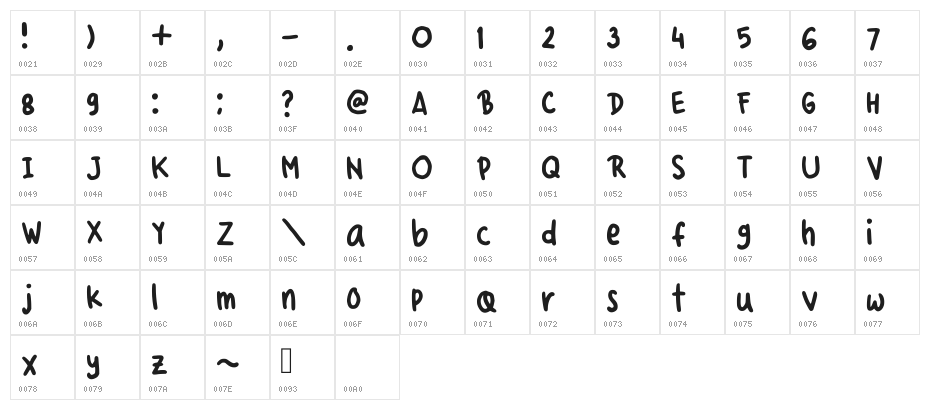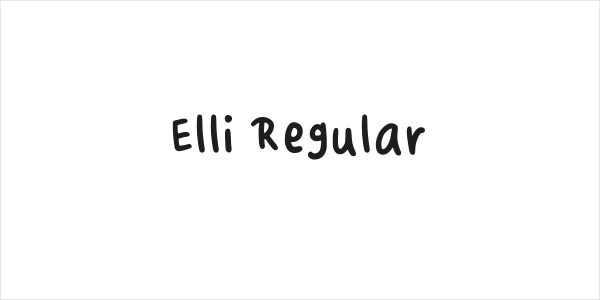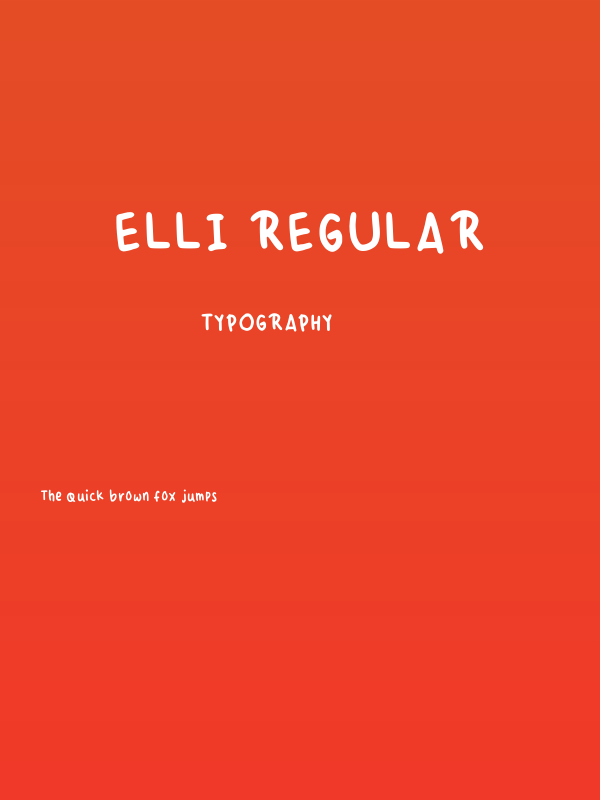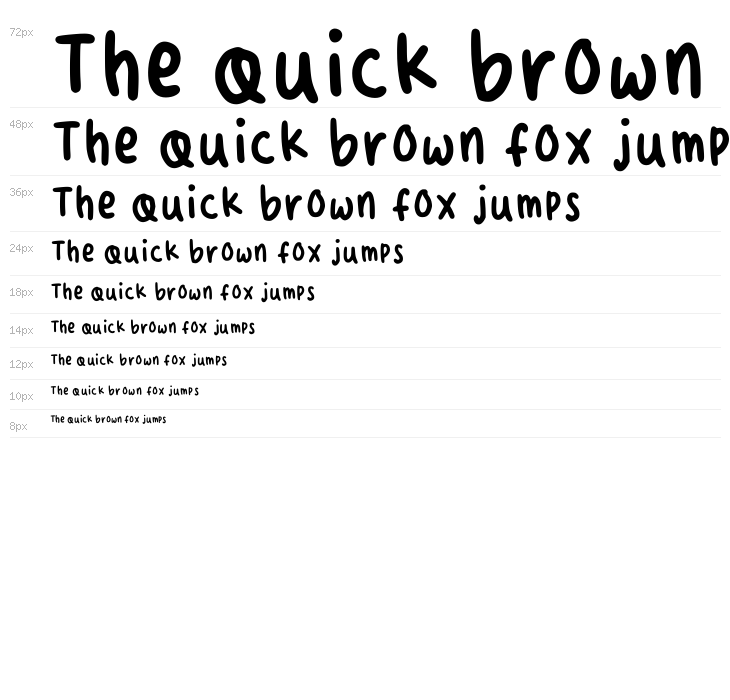
Elli Regular Font
Elli Regular Description
This font features a playful and casual handwritten style, characterized by its rounded and slightly irregular letterforms. The strokes are bold and consistent, giving it a friendly and approachable appearance. The uppercase and lowercase letters maintain a uniform height, contributing to its cohesive look. Numbers and special characters are designed to match the overall style, ensuring versatility across different uses. The font's organic feel makes it suitable for projects that require a personal touch or a relaxed vibe.
| Use Case | Logos, Headlines, Informal Text |
| Proposed Projects | Ideal for greeting cards, children's books, casual branding, and social media graphics. |